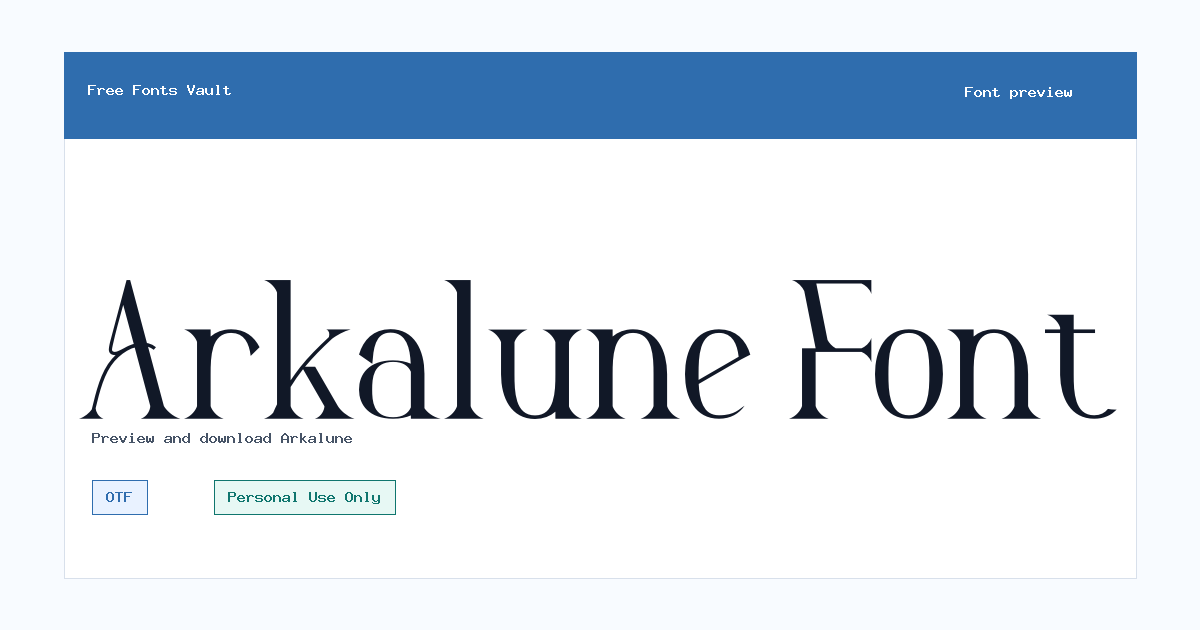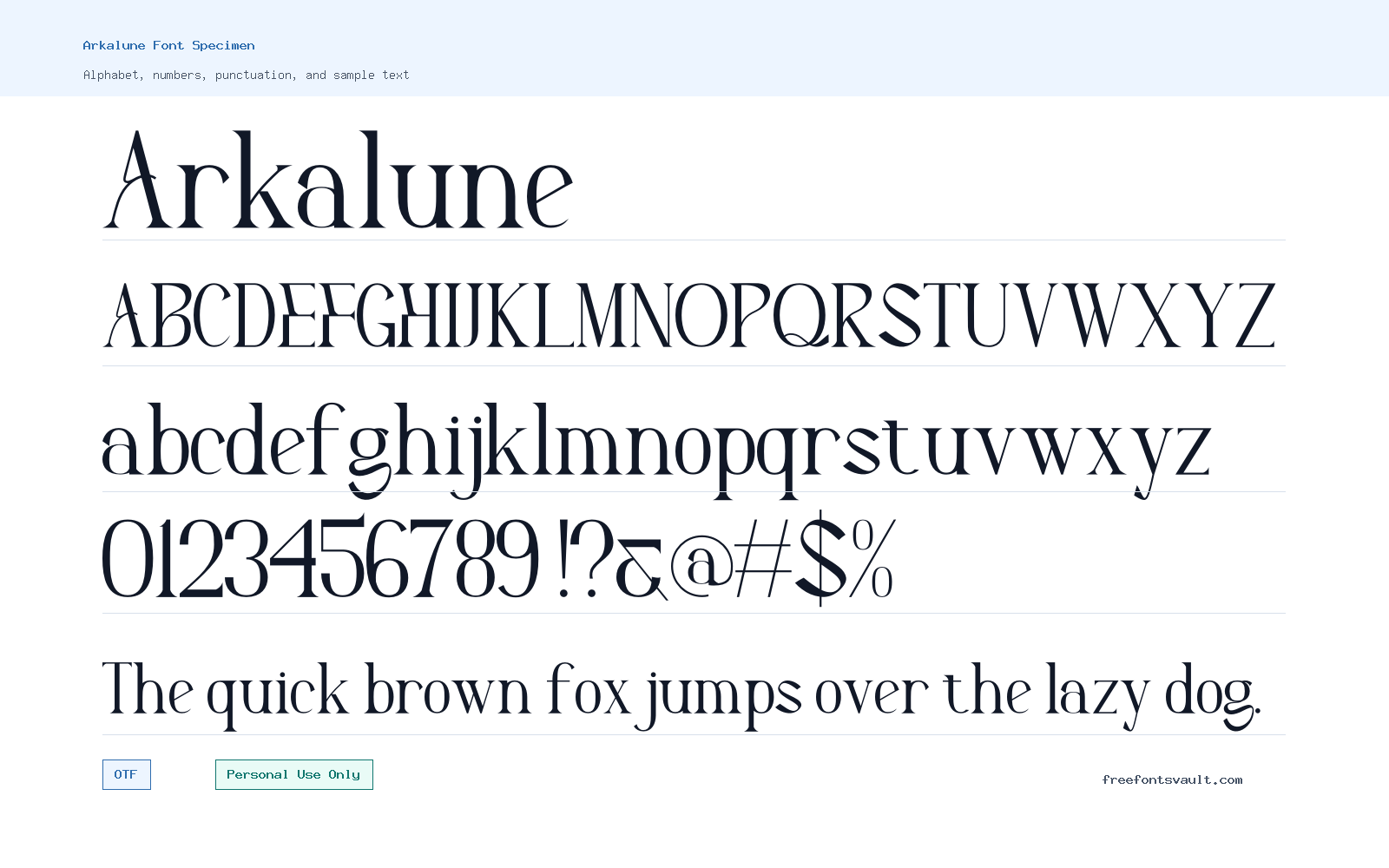
Arkalune
- Designer Rishe Kristina
- Foundry Rishketch Studios
Arkalune font.
Arkalune is a serif font family with regular and italic OTF styles, made for personal projects where you want a more composed, text-led look without losing a decorative touch.
About Arkalune Font
Arkalune works best when you give it room to show its letterforms. Use the regular style for names, titles, short headings, invitation text, mood boards, quote graphics, and personal branding drafts. The italic style adds a softer change of pace, so it can work well for secondary lines, names, captions, or a short phrase paired with the upright style. Since the font is listed as a serif, it is a better fit for projects that need a classic or editorial feel than for very technical layouts.
- Regular and italic styles are included, giving you an upright option and a matching slanted style for contrast.
- Personal invitations, quote cards, mood boards, posters, and title graphics.
- Short display text where a serif style is more useful than a plain sans serif.
Arkalune is credited to designer Rishe Kristina and foundry Rishketch Studios.
What is Arkalune best used for?
It is best suited to short personal-use designs such as headings, invitations, quote images, posters, name treatments, and preview mockups.
How should I pair Arkalune with another font?
Use Arkalune for the main title or accent line, then pair it with a clean sans serif for longer copy. This keeps the design readable while letting the serif style stand out.